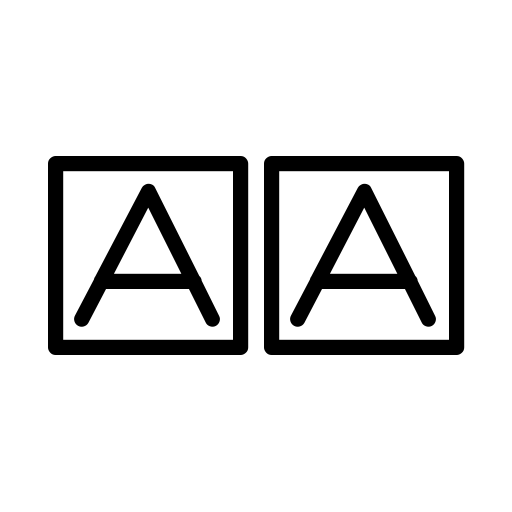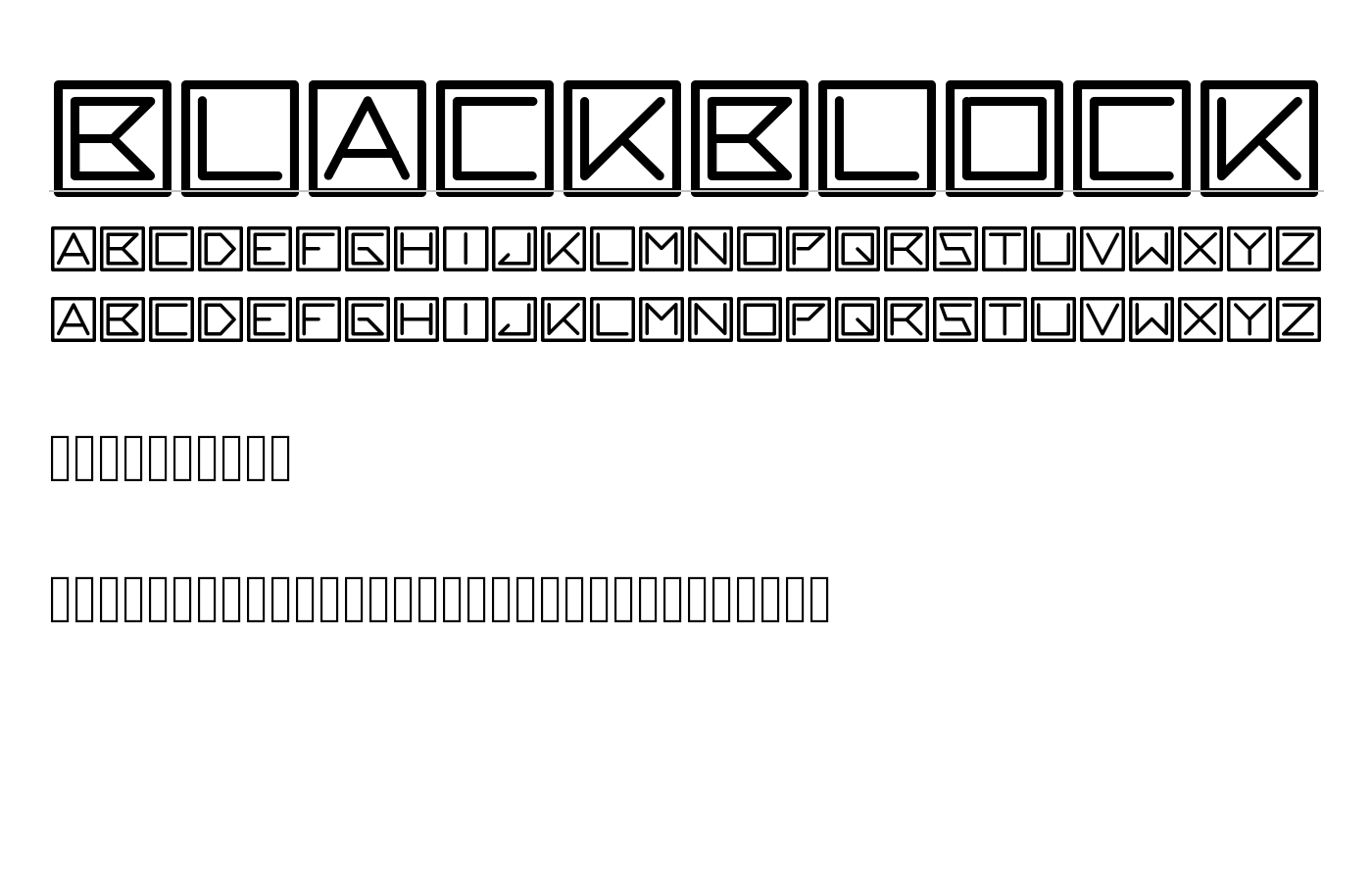
Blackblock is a bold, geometric sans serif font characterized by its strong, blocky letterforms enclosed within square outlines, giving it a modern and tech-inspired aesthetic. Its uniform stroke weight and angular shapes convey a sense of structure and precision, making it ideal for eye-catching headlines, logos, and branding that seek a futuristic or industrial vibe. This font works well in designs that demand a distinctive and modern appeal with a digital or architectural feel.